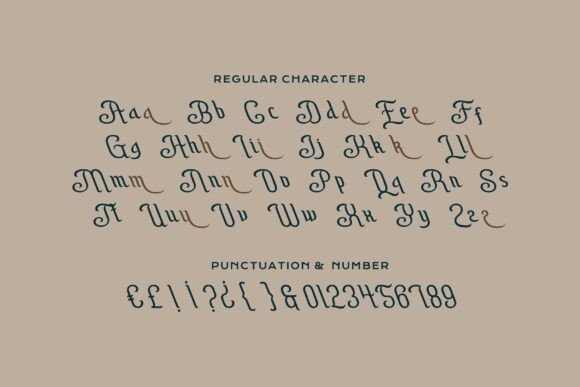
Introduction to Pollemik Font Font
Fonts play a crucial role in design, and the Pollemik Font font is a typeface that brings both character and versatility to any project. Whether you’re working on a branding project, a website, or a print design, the Pollemik Font font offers a unique style that can elevate your work.
Pollemik is an elegant vintage script font that effortlessly blends timeless sophistication with a modern, expressive flair.
Designed with sweeping swashes and elegant ligatures, this font elevates any project with a sense of artistry and sophistication Its graceful, flowing letterforms and high contrast strokes capture the essence of classic calligraphy, while its playful curves add a contemporary touch.
Key Features of Pollemik Font Font
Why Choose Pollemik Font Font?
The Pollemik Font font is more than just a typeface – it’s a design tool that helps you communicate your message with style and clarity. Its unique character set and versatile design make it suitable for a wide range of applications, from elegant invitations to bold headlines.
With its carefully crafted letterforms and balanced proportions, the Pollemik Font font ensures readability and visual appeal across all mediums.
What makes Pollemik Font font special?
The Pollemik Font font stands out with its unique design, exceptional readability, and versatility across various design applications.